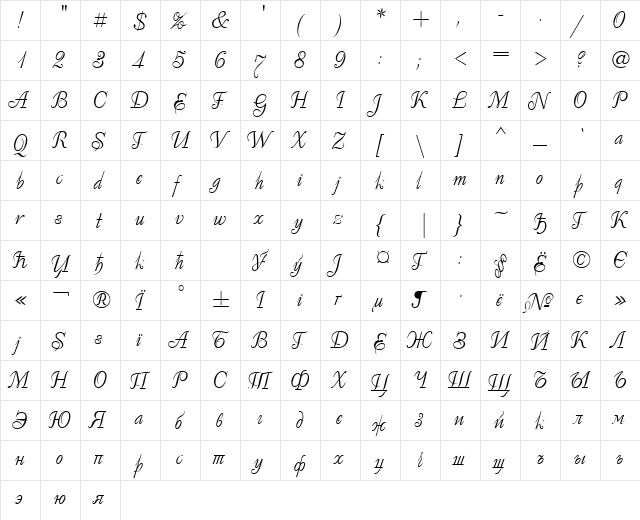
Decor Cyrillic@
Design Context for Decor Typeface
Decor is a composed and adaptable typeface that performs quietly and consistently across a wide range of design contexts.